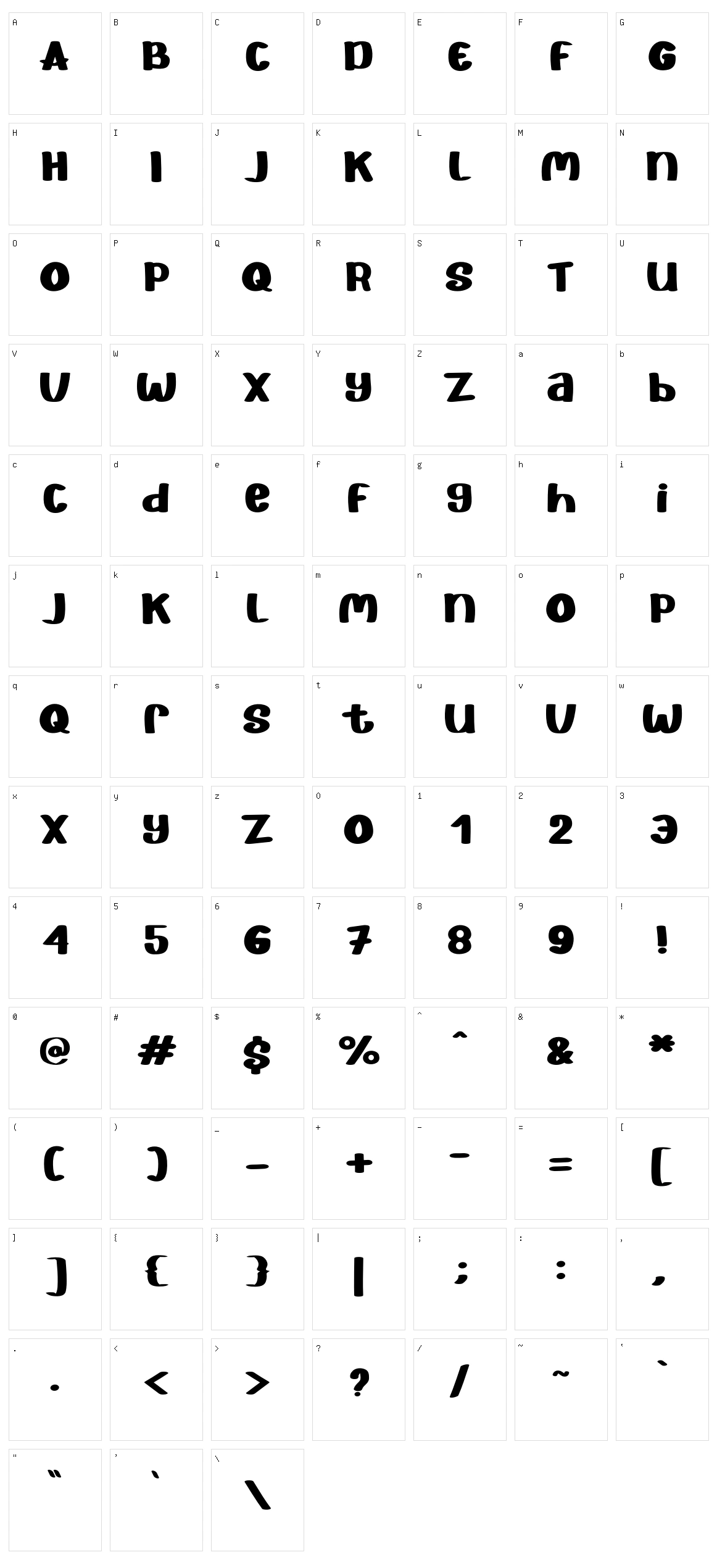
The free font Eye Monsta is carefully designed by Illushvara, showcasing a thoughtful balance of creativity and usability and falls under the Cartoon font style. When you download the ZIP file, it contains only 312.19 KB of font files, making it lightweight and quick to download. Please review the license details below to understand permitted usage and distribution rights. If license information is not available, we recommend using this font for personal projects only or contacting the author directly for commercial usage permissions.
Eye Monsta Font by Illushvara Design,